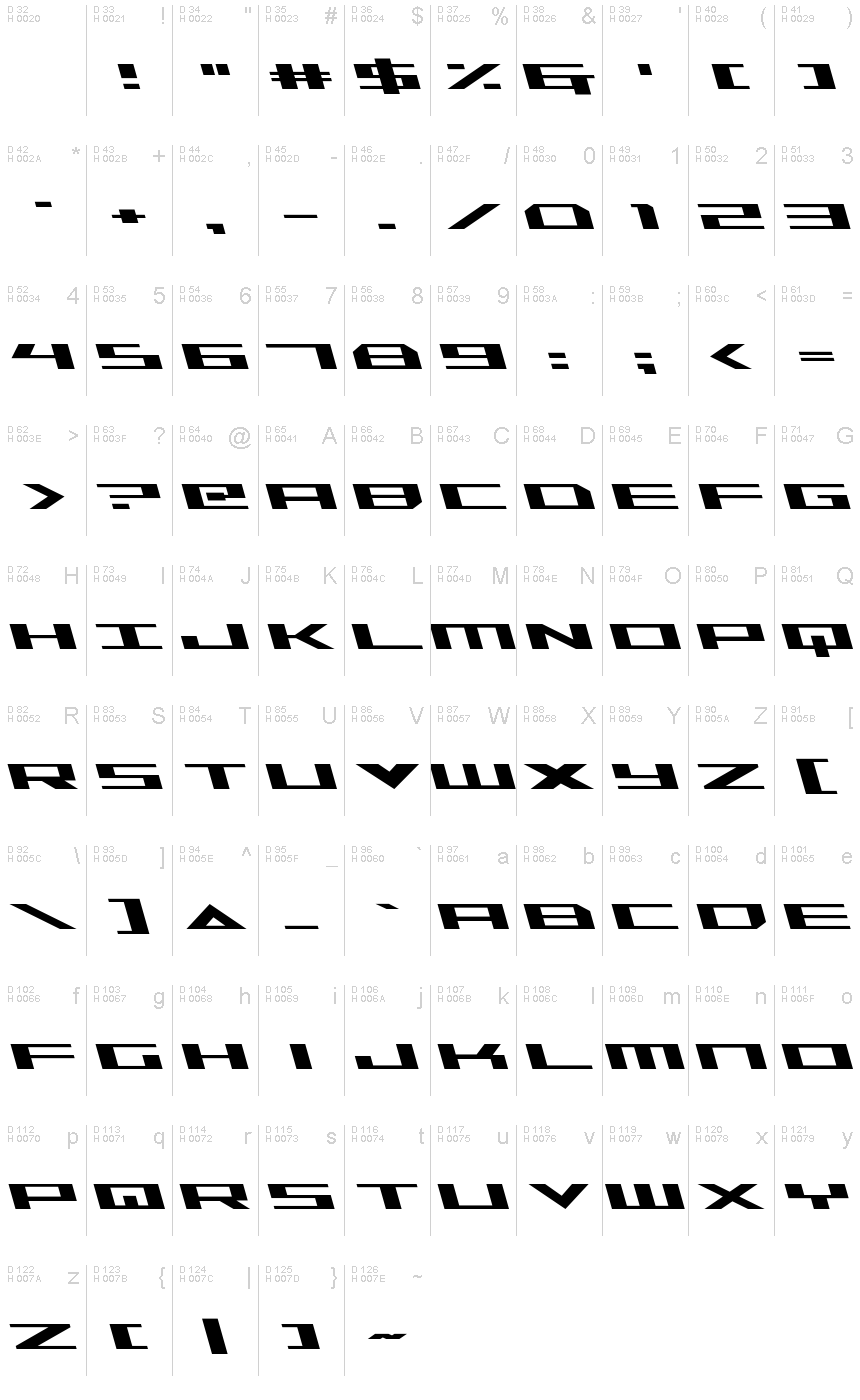
Trireme Leftalic by Daniel Zadorozny of Iconian Fonts is a free techno display font with a pronounced backward slant. Broad, angular letters use sharp diagonal cuts and long horizontal openings, producing a fast, engineered silhouette.
It is particularly suited to science-fiction title cards, where its leftward lean and sliced shapes can suggest a ship changing course. The same mechanical styling fits game interfaces and motorsport branding, especially when speed and directional movement are central themes. Those recurring cutouts can also echo vents, hull panels, or racing stripes in artwork.